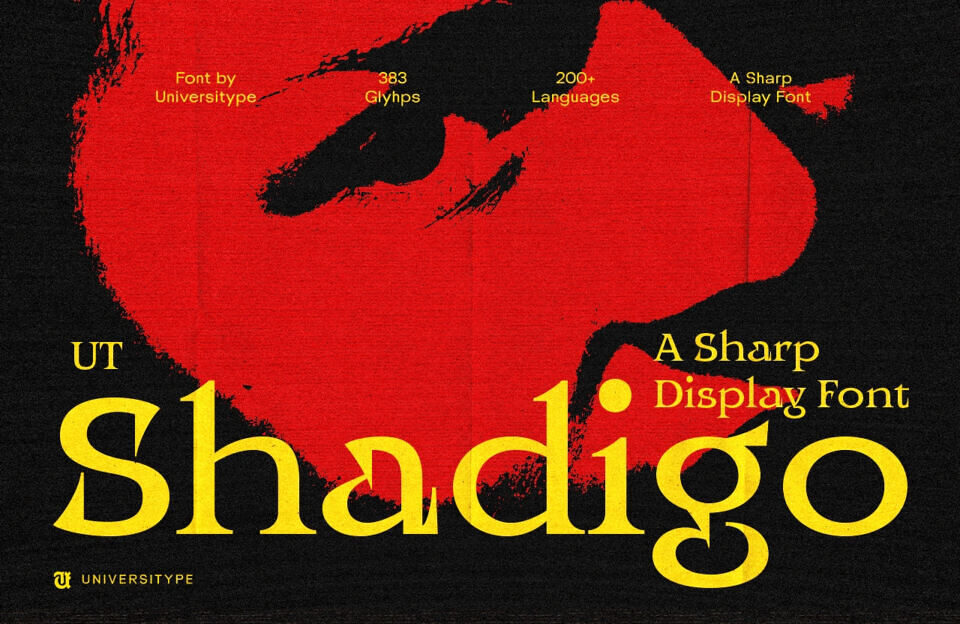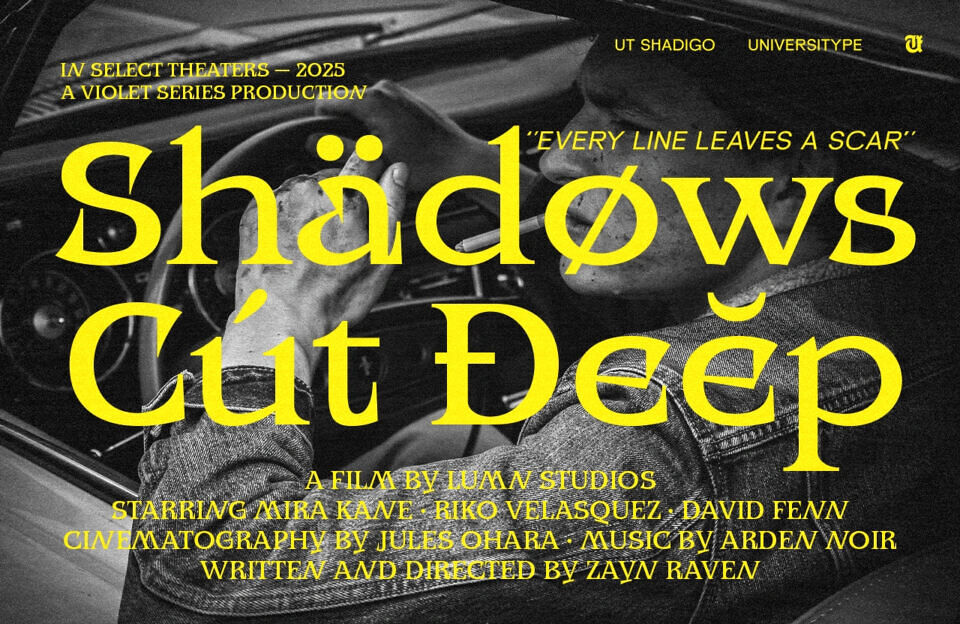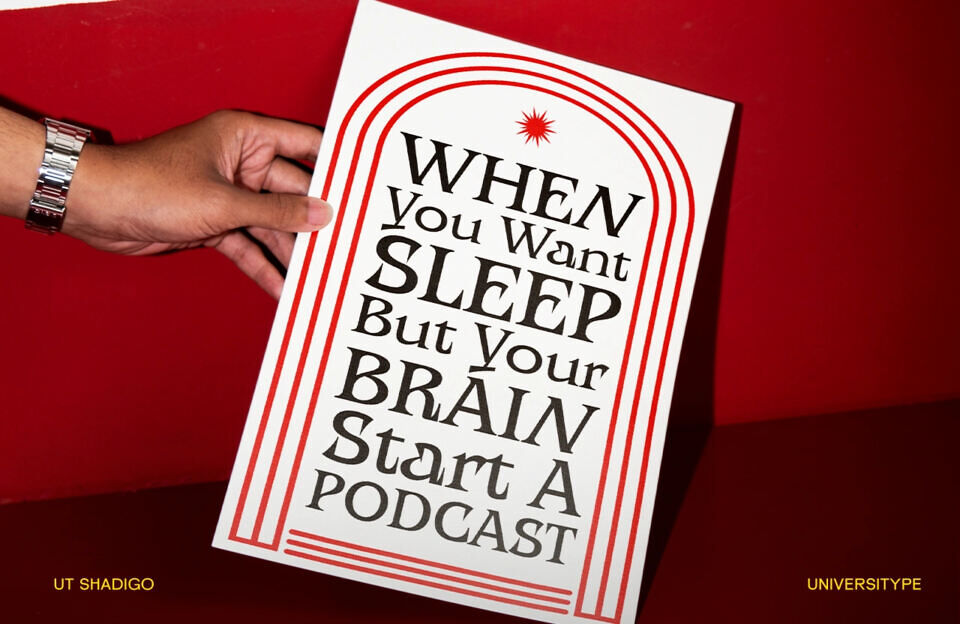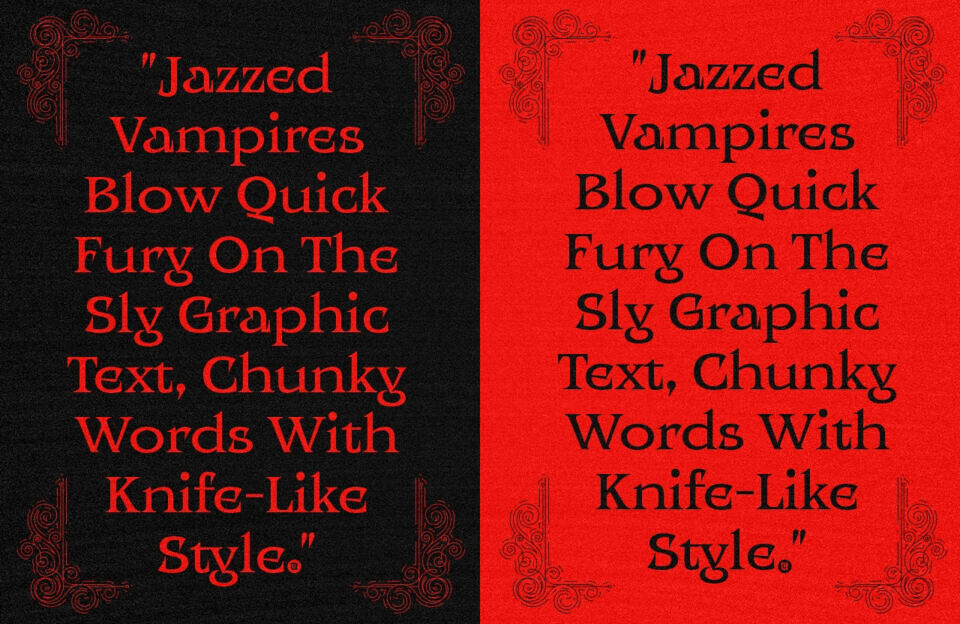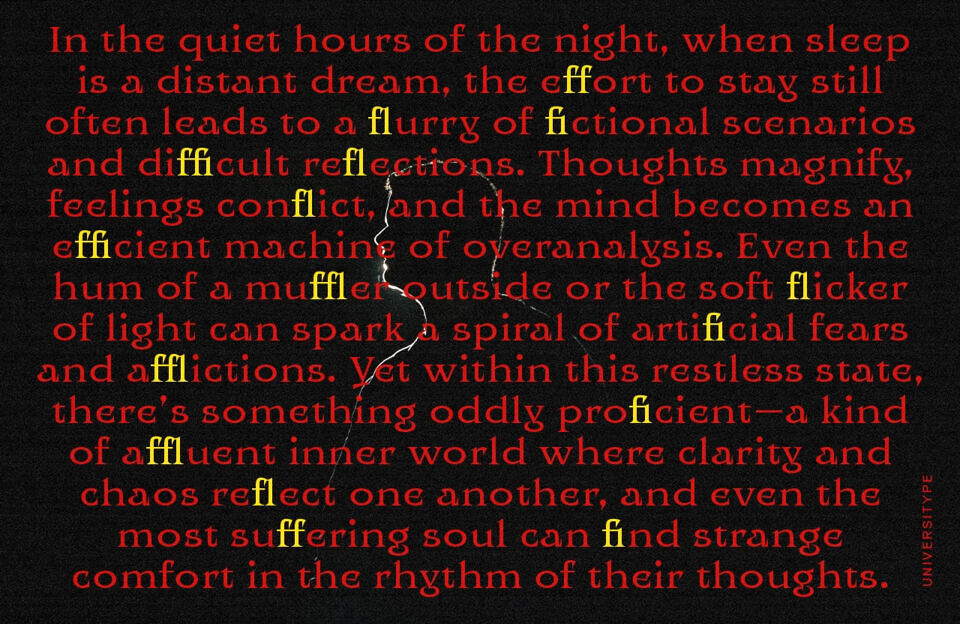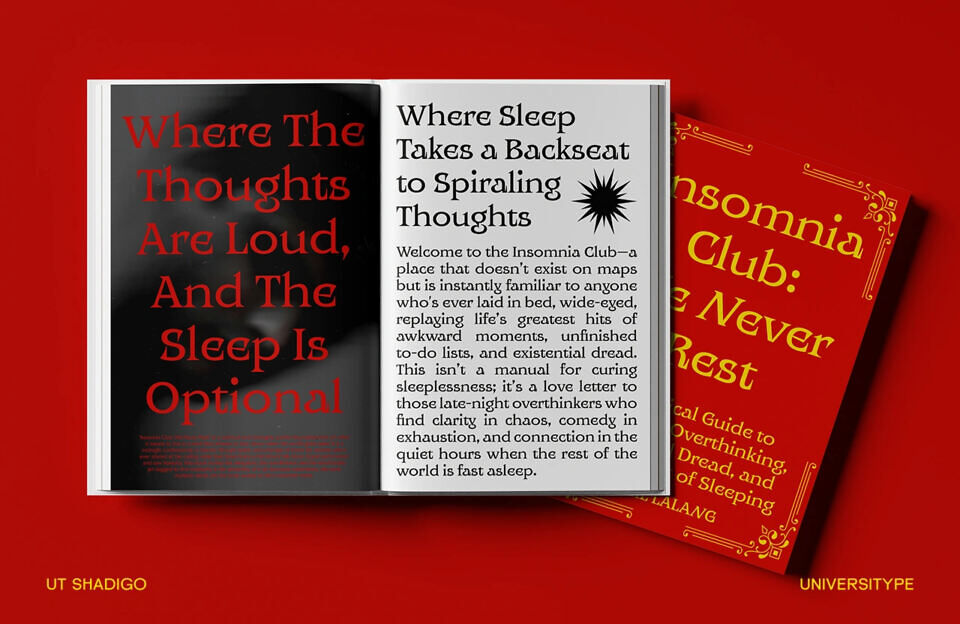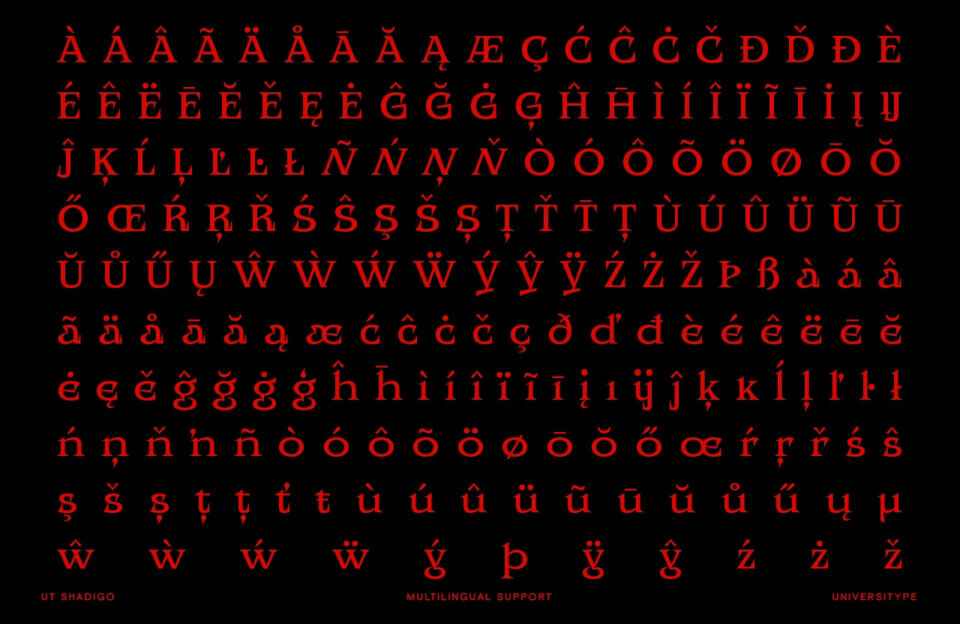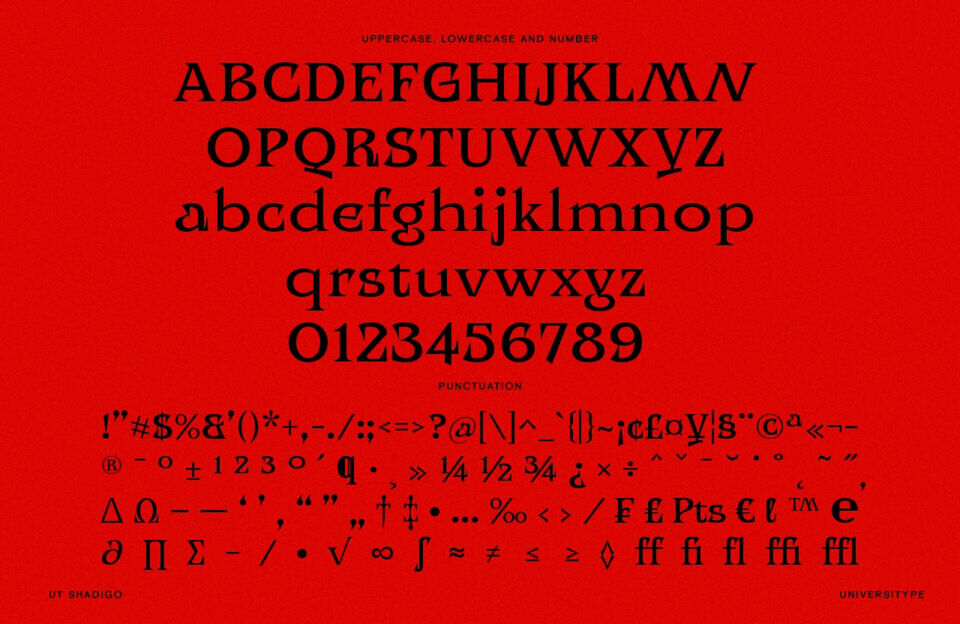
UT Shadigo brings contrast and confidence into every letter it touches. It’s a typeface that knows exactly who it is—sleek, sharp, and just a little rebellious. The bold strokes and unexpected angles give it an edge, but there’s a softness that keeps it grounded.
Perfect for designers who want to make a statement without shouting. Shadigo is one of those fonts that feels like it belongs in a city at dusk—modern, moody, a little mysterious. Whether it’s a poster, a brand, or editorial work, it commands attention and keeps it there.